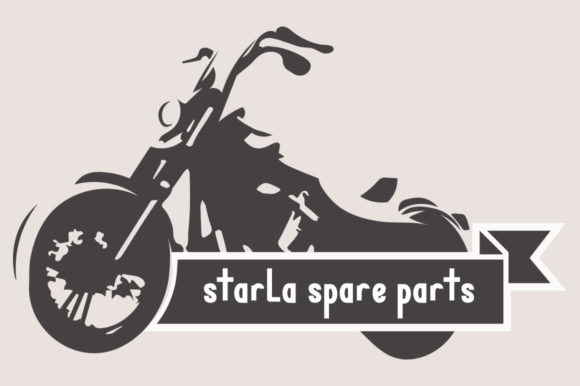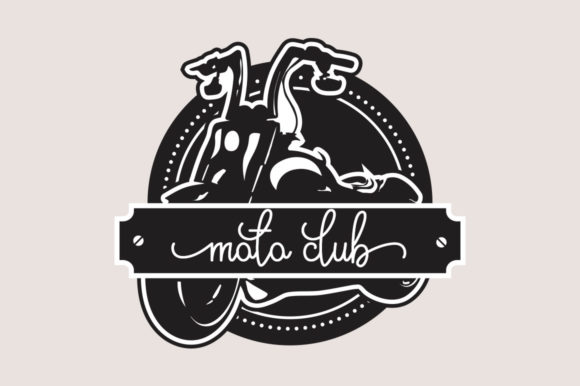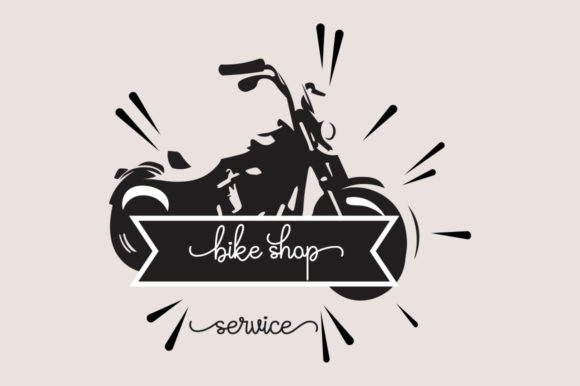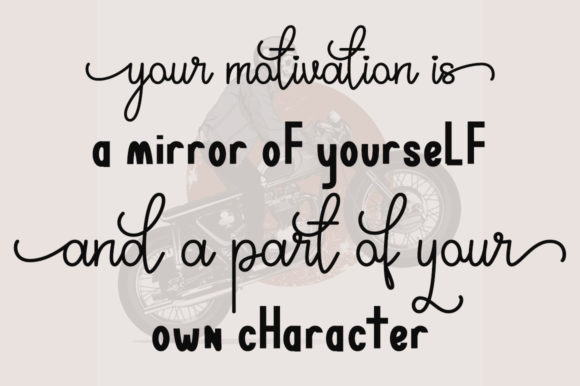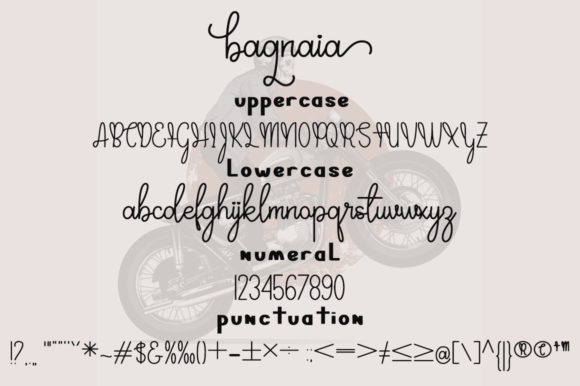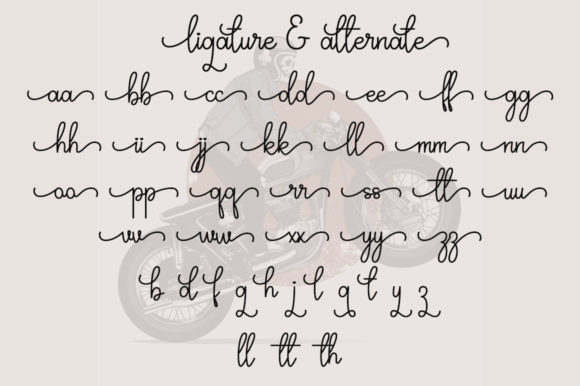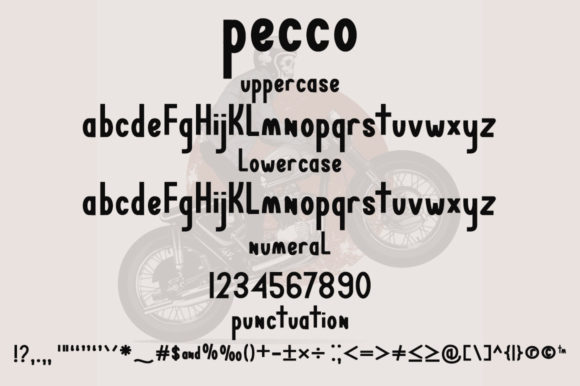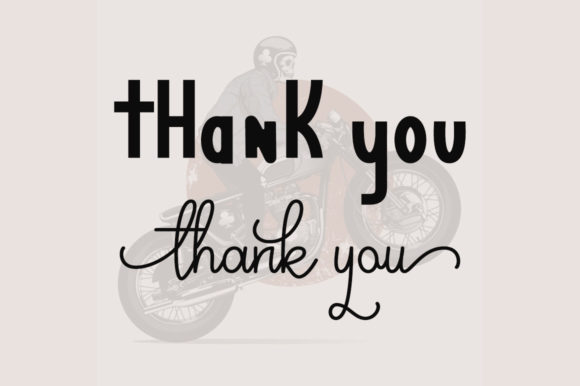
Pecco Bagnaia Font
About Pecco Bagnaia Font
Pecco Bagnaia is a lovely and versatile duo font (sans serif and script). This font is PUA encoded which means you can access all of the glyphs and swashes with ease! Get inspired by its light and approachable style and employ it to your most favorite creations.